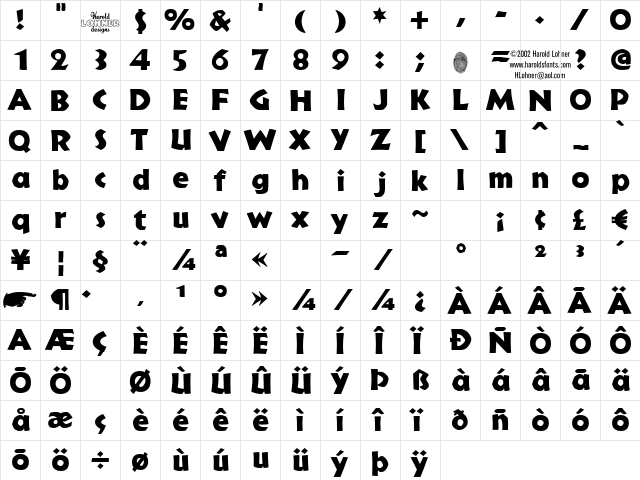
BrideAlt Regular
Design Context for BrideAlt Typeface
BrideAlt is a composed and adaptable typeface that performs quietly and consistently across a wide range of design contexts.